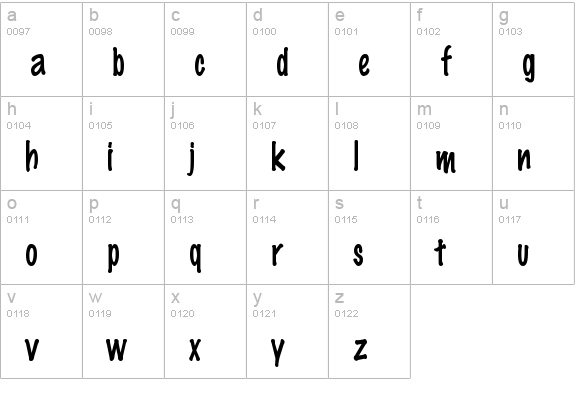
MarkerCondensed Normal Font Details
MarkerCondensed Normal is the standard, neutral variant in the MarkerCondensed typeface family \xE2\x80\x94 well suited to general body text, paragraphs, and standard typographic work.
MarkerCondensed Normal is a striking and versatile font that commands attention with its distinctive design. Its bold and condensed letterforms exude a sense of energy and modernity, making it perfect for a wide range of creative projects. Whether you are designing a logo, creating eye-catching headlines, or crafting unique typographic compositions, MarkerCondensed Normal is a reliable choice that will make your text stand out. This font's clean lines and tight spacing give it a sleek and polished appearance, while its slightly rounded edges add a touch of playfulness and approachability. The letters have a hand-drawn quality, reminiscent of a marker's strokes, which brings a sense of authenticity and human touch to your designs. With its robust character set, MarkerCondensed Normal offers support for multiple languages, allowing you to reach a global audience with ease. What sets MarkerCondensed Normal apart is not only its exceptional design but also its accessibility. It is freely available to download at FontsMarket.com, providing you with the opportunity to enhance your projects without any additional cost. This font embodies the spirit of creativity and inclusivity, inviting designers from all walks of life to explore its potential and unleash their imagination. Whether you are a professional designer or an aspiring enthusiast, MarkerCondensed Normal is a valuable addition to your font library. With its striking appearance, versatility, and availability, this font is sure to elevate your designs and leave a lasting impression on your audience. Don't miss out on the opportunity to download MarkerCondensed Normal for free at FontsMarket.com and take your typography game to the next level.